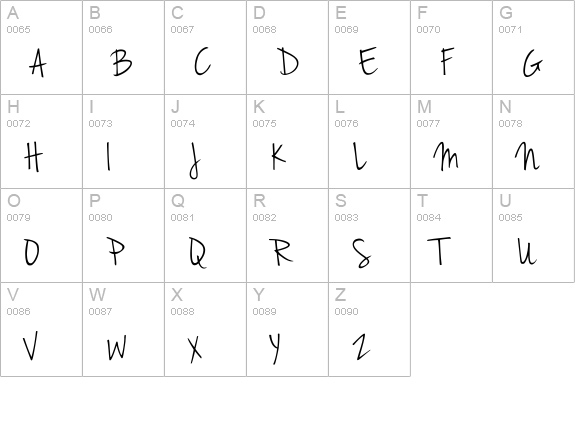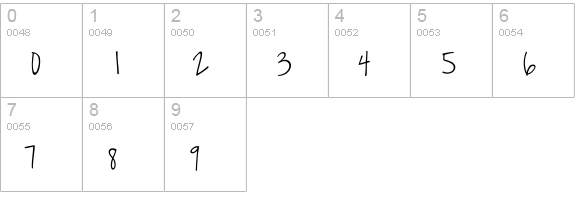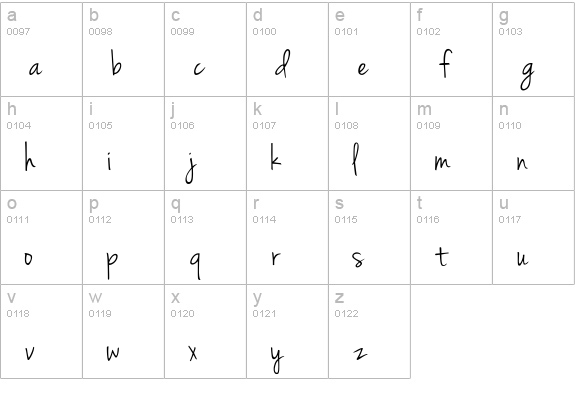
Introducing the exquisite Jenna Sue font, a delightful typeface that effortlessly combines elegance and playfulness. With its graceful curves and charming letterforms, Jenna Sue captivates the eye and adds a touch of sophistication to any design project. This versatile font is perfect for a wide range of applications, from invitations and wedding stationery to logos, branding, and social media graphics. Its unique blend of classic and contemporary elements makes it ideal for both formal and casual designs. But what sets Jenna Sue apart is not just its stunning aesthetics, it's also the fact that it is freely available to download at FontsMarket.com. Yes, you read that right – this exceptional font can be yours without any cost. Whether you're a professional designer or a hobbyist, Jenna Sue is a valuable addition to your font collection, without putting a dent in your budget. Crafted with meticulous attention to detail, Jenna Sue boasts a wide range of characters, including uppercase and lowercase letters, numerals, punctuation marks, and special symbols. Its smooth, flowing lines and legible structure ensure readability across various sizes and mediums, whether it's print or digital. The versatility of Jenna Sue is further enhanced by its extensive language support, making it accessible to a global audience. So, whether you're designing for English, French, Spanish, German, or any other language, this font has got you covered. Download Jenna Sue font today from FontsMarket.com, and let your creativity soar. Whether you're working on personal projects or professional assignments, this font will surely elevate your designs to new heights. With Jenna Sue, you not only get a stunning typeface, but also the freedom to bring your ideas to life without any limitations. So, why wait? Embrace the beauty of Jenna Sue and unlock a world of possibilities in your design journey.